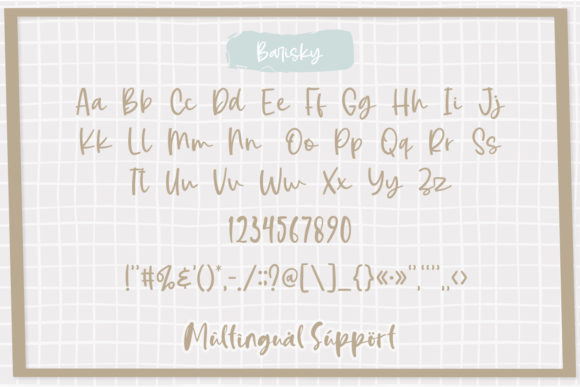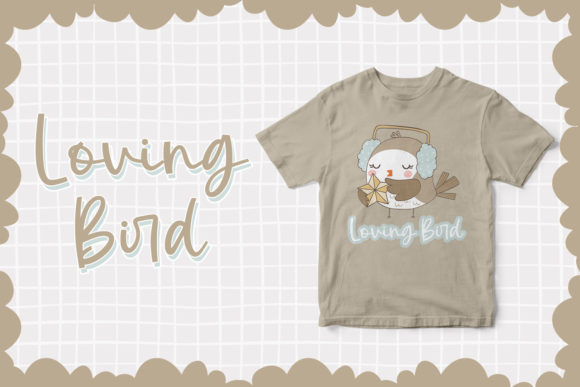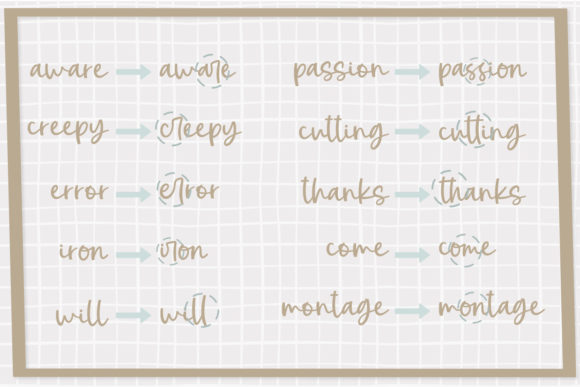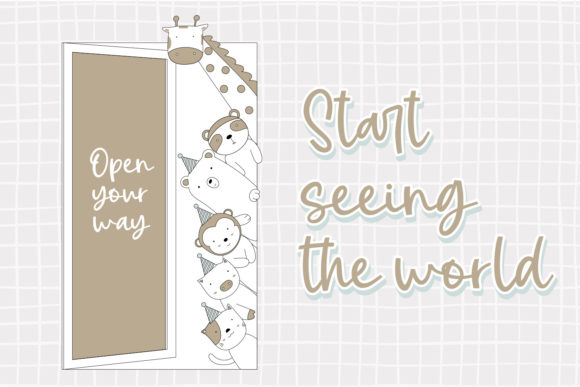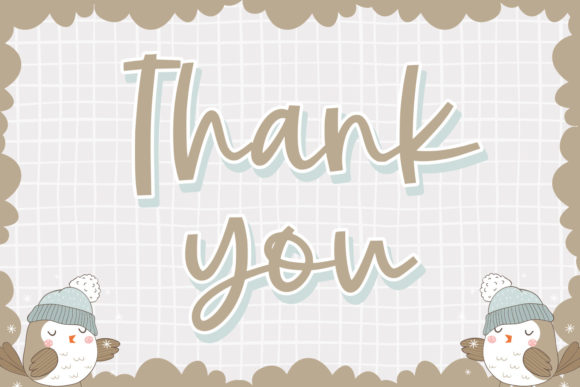
About Barisky Cute Script Font
Barisky is a stunning and daring handwritten font that brings a playful and adventurous vibe to your designs. Its unique and eye-catching style is perfect for fun and energetic projects. Whether you’re creating invitations, posters, logos, or any other design that needs a touch of excitement, Barisky will definitely make a statement.
With its bold and expressive letterforms, Barisky commands attention and adds a sense of daring and creativity to your designs. The letters are carefully crafted with a mix of thick and thin strokes, creating a dynamic and lively appearance. Each character has its own personality, making your text truly stand out.
The versatility of Barisky allows you to use it in a wide range of designs. It can be perfect for party invitations, children’s books, playful branding, social media posts, and more. Let your imagination run wild and experiment with different color combinations and layouts to create truly spectacular designs.
Barisky is designed to be easy to use and legible, ensuring that your message is conveyed effectively. The font’s unique style is complemented by a wide range of ligatures and alternates, allowing you to customize and add variety to your text. Whether you want to create a whimsical title or a fun and playful headline, Barisky has all the tools you need.
Embrace the boldness and versatility of Barisky and let it unleash your creativity. With its daring and eye-catching style, this font is sure to add excitement and a touch of fun to your designs. Fall in love with Barisky and create truly spectacular and memorable designs that leave a lasting impression.